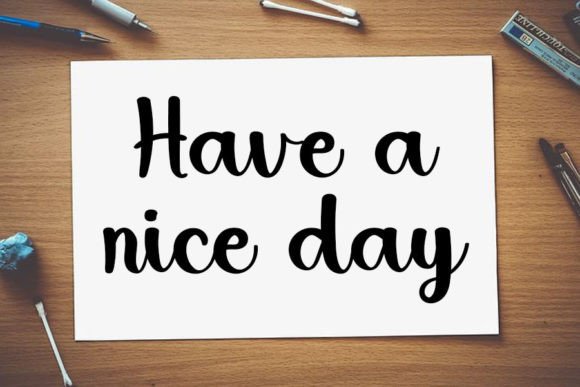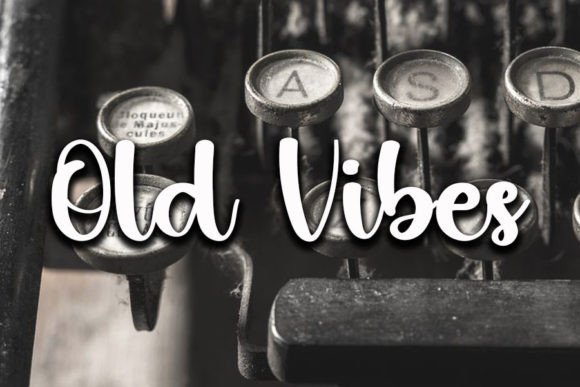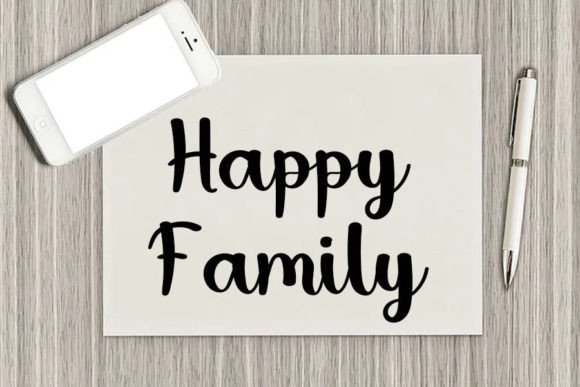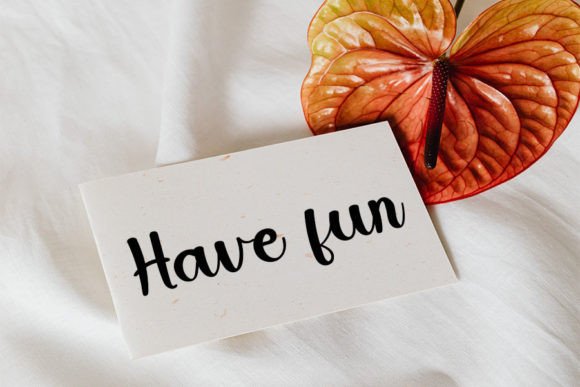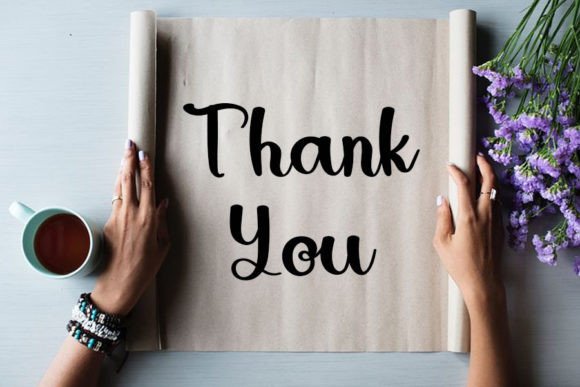
Introducing Have Wife Font: The Magical Handwritten Font for Elegant Designs
Are you a designer or crafter looking for a unique and elegant font to elevate your projects? Look no further than Have Wife Font, a magical handwritten font that combines cleanliness and quirkiness. In this article, we’ll dive into the features and benefits of Have Wife Font, and explore how it can be the perfect fit for your logos, branding, social media, and crafty DIY projects.
The Story Behind Have Wife Font
Have Wife Font is a carefully crafted handwritten font that boasts a touch of elegance. Its creator aimed to design a font that would be both clean and quirky, making it versatile for various design applications. The result is a font that exudes sophistication while maintaining a playful charm.
Key Features of Have Wife Font
- Magical Handwritten Style: Have Wife Font features a beautiful, handwritten style that adds a personal touch to any design.
- Elegant and Quirky: The font strikes the perfect balance between elegance and quirkiness, making it suitable for a wide range of projects.
- Clean and Readable: Despite its handwritten nature, Have Wife Font remains clean and readable, even at smaller sizes.
- Versatile: This font can be used for various design applications, including logos, branding, social media, and crafty DIY projects.
When it comes to creating a logo or branding materials, the font choice can make or break the design. Have Wife Font is an excellent option for businesses and individuals looking to establish a strong brand identity. Its elegant and quirky style allows it to stand out from more traditional fonts, while its cleanliness ensures it remains professional.
Imagine using Have Wife Font for your business logo, and instantly conveying a sense of sophistication and approachability. The font’s unique character can help you differentiate your brand and leave a lasting impression on your target audience.
Social Media Friendly
In today’s digital age, having a strong social media presence is crucial for businesses and individuals alike. Have Wife Font can help you elevate your social media game with its clean and readable style. Use it to create engaging graphics, quotes, and posts that capture your audience’s attention.
Whether you’re a fashion blogger, small business owner, or influencer, Have Wife Font can help you establish a consistent brand voice across various social media platforms.
Crafty DIY Projects
Have Wife Font is not just limited to digital designs; it’s also perfect for crafty DIY projects. Use it to create beautiful handmade cards, scrapbook pages, or journal entries. The font’s magical handwritten style will add a personal touch to your crafts, making them truly special.
Imagine using Have Wife Font to create custom vinyl decals, iron-on designs, or even hand-painted signs. The possibilities are endless, and the font’s versatility ensures it will complement your creative projects perfectly.
Tips for Using Have Wife Font
- Experiment with Colors: Have Wife Font looks great in various colors, so don’t be afraid to experiment and find the perfect hue for your design.
- Mix and Match: Combine Have Wife Font with other fonts to create a unique and visually appealing design.
- Pay Attention to Spacing: Adjust the spacing between letters and words to ensure your design looks balanced and harmonious.
Have Wife Font is a magical handwritten font that offers the perfect blend of elegance and quirkiness. Its versatility, cleanliness, and readability make it an excellent choice for designers and crafters looking to elevate their projects. Whether you’re creating logos, branding materials, social media graphics, or crafty DIY projects, Have Wife Font is sure to impress.